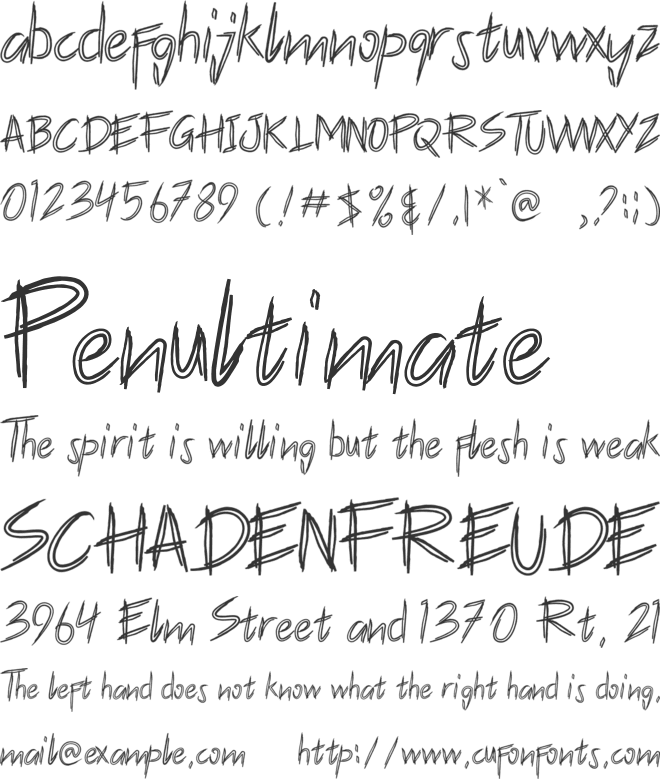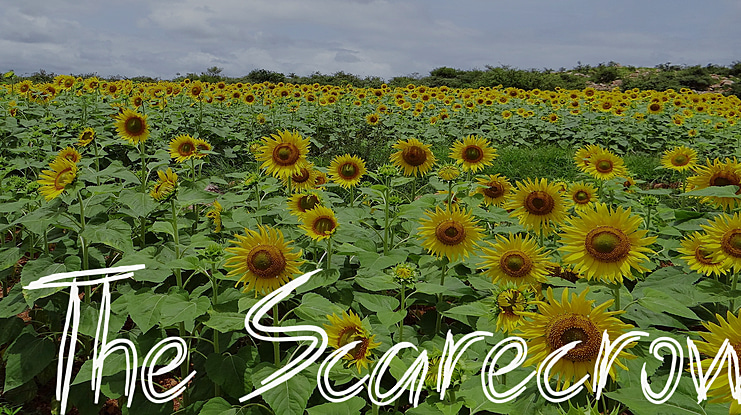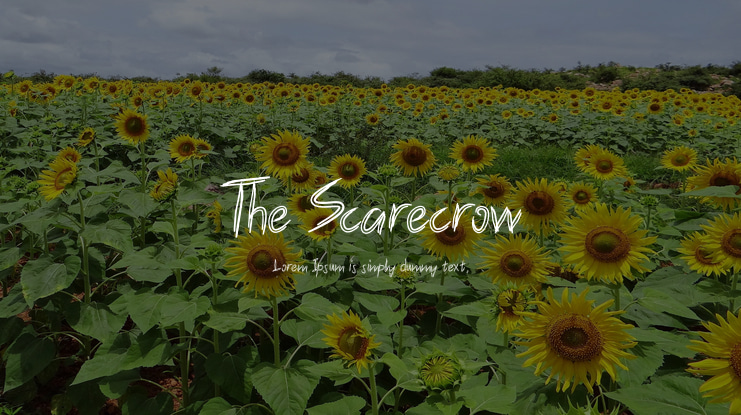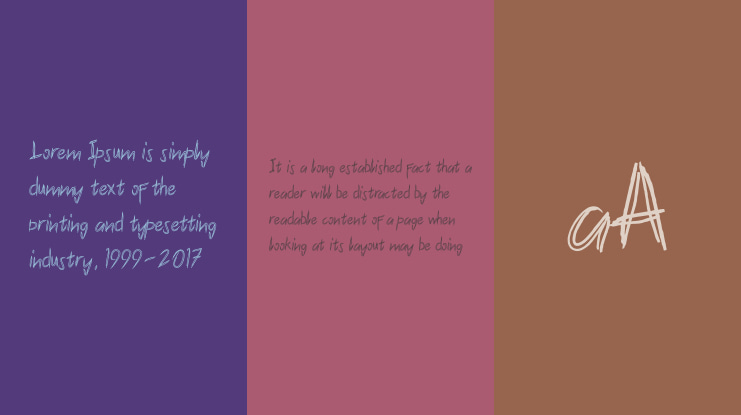
The Scarecrow Font
The Scarecrow is a cute and funny handwritten font. Whimsical and a bit quirky, this font will brighten up each of your designs. Add it confidently to your projects, and you will love the results.